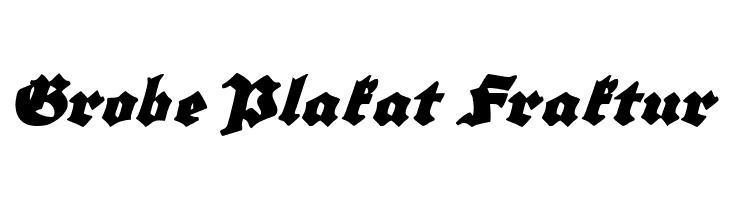
An elegant, flowing script font with a handwritten style.
A bold, geometric font with angular lines and a modern aesthetic.
A bold, jagged font with a claw-like, aggressive style.
A bold, geometric font with strong, uniform letterforms.
A bold, geometric font with a modern and impactful design.
A bold, geometric font with a condensed and impactful style.
A bold, three-dimensional decorative font with intricate line work and shading.
A bold, dramatic Blackletter-style font with sharp, angular lines and intricate detailing.
A bold, angular font with a historical and dramatic style.